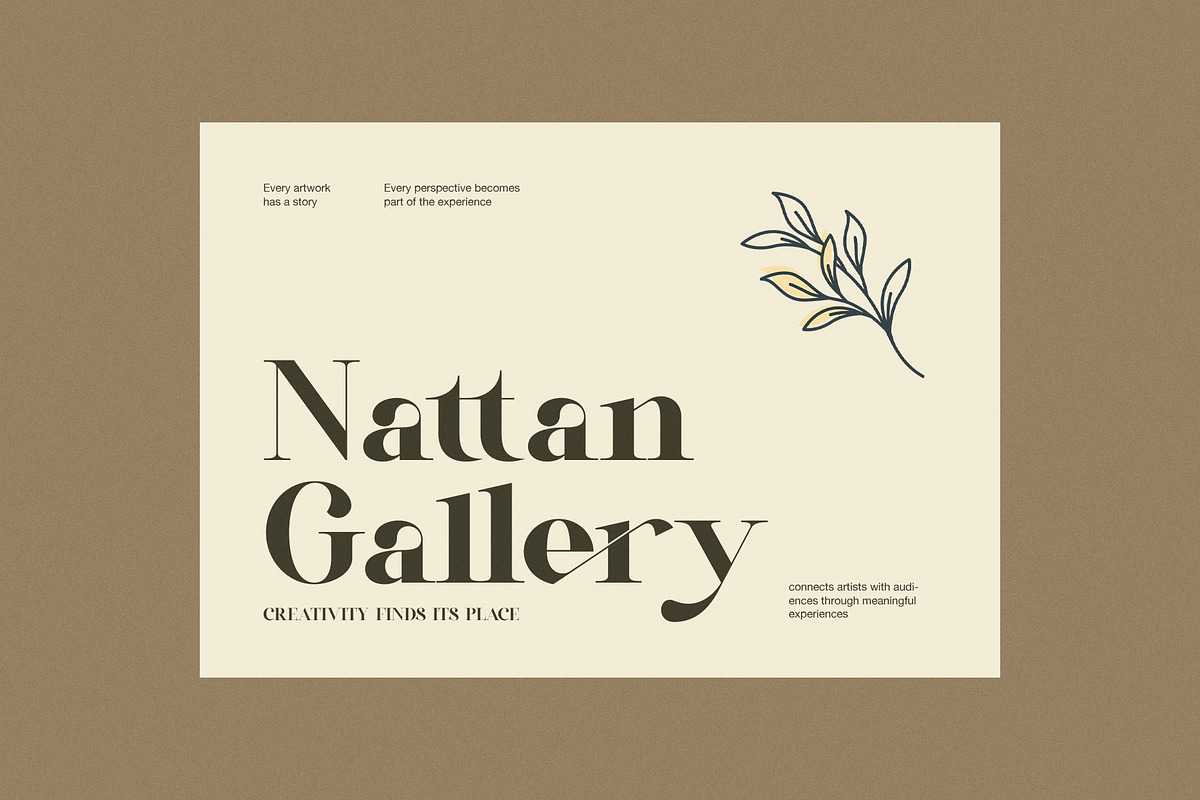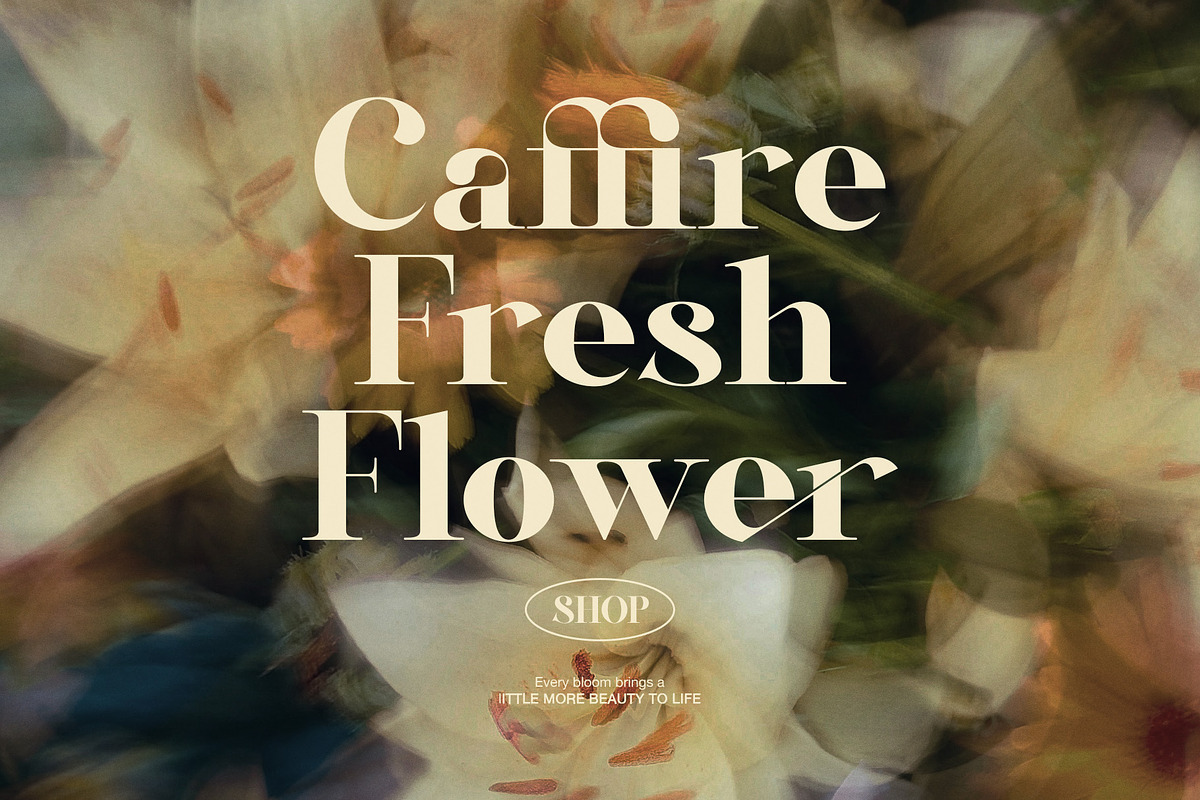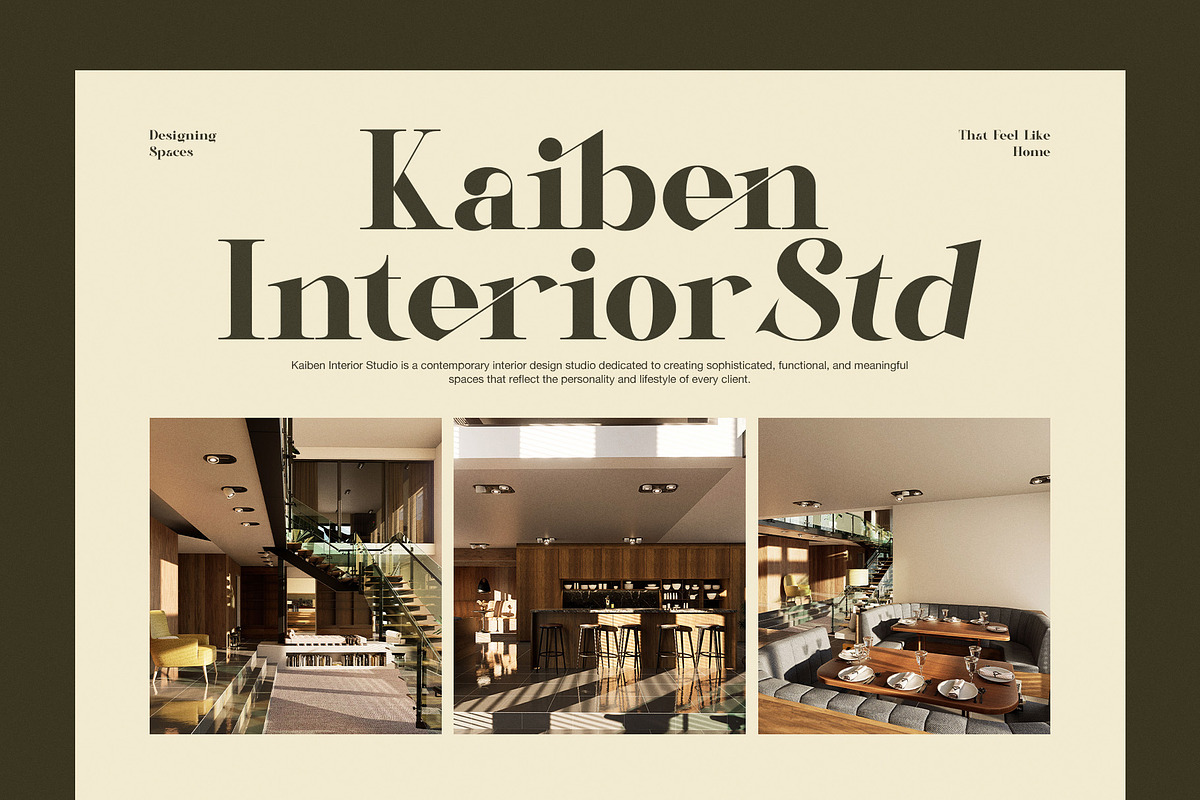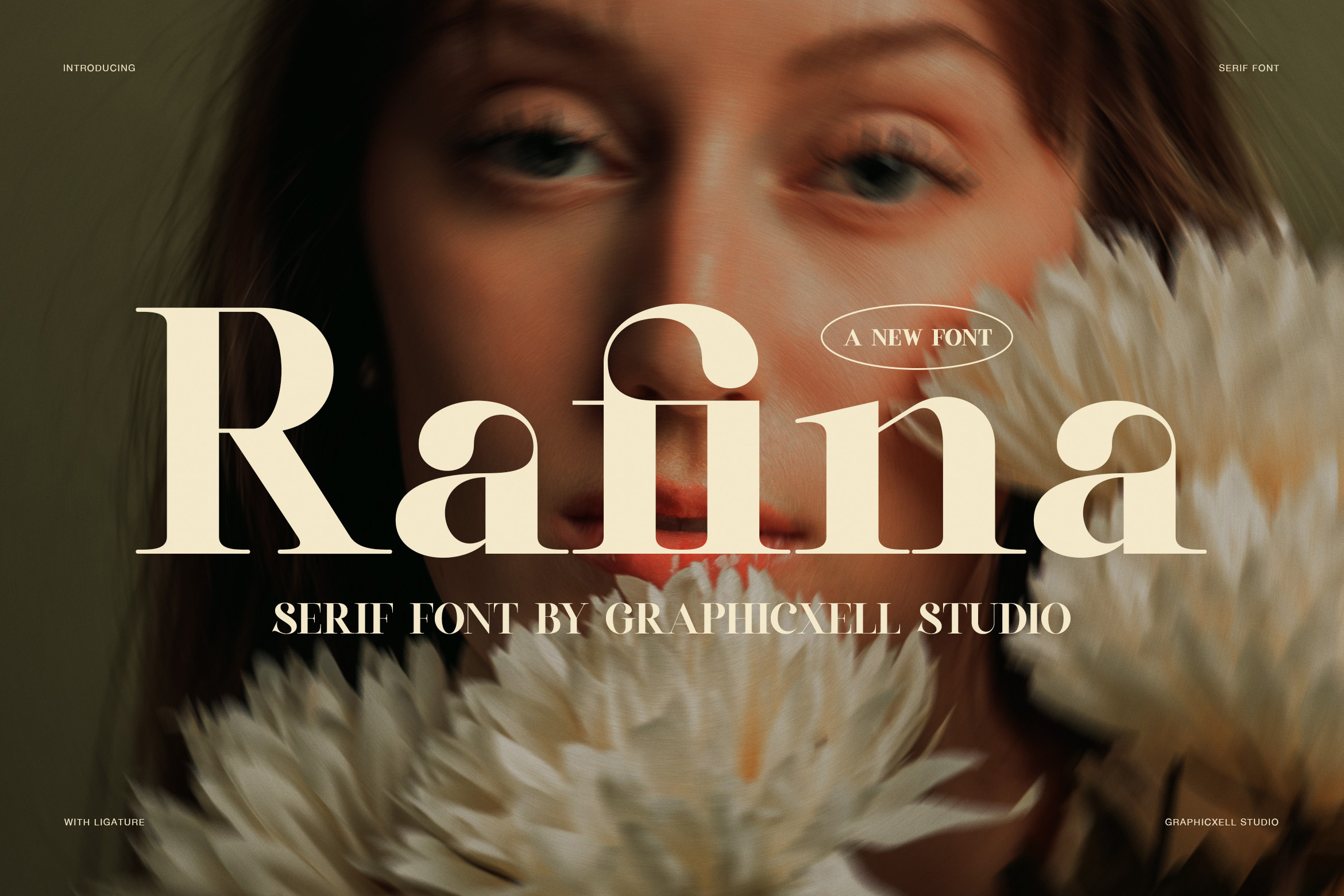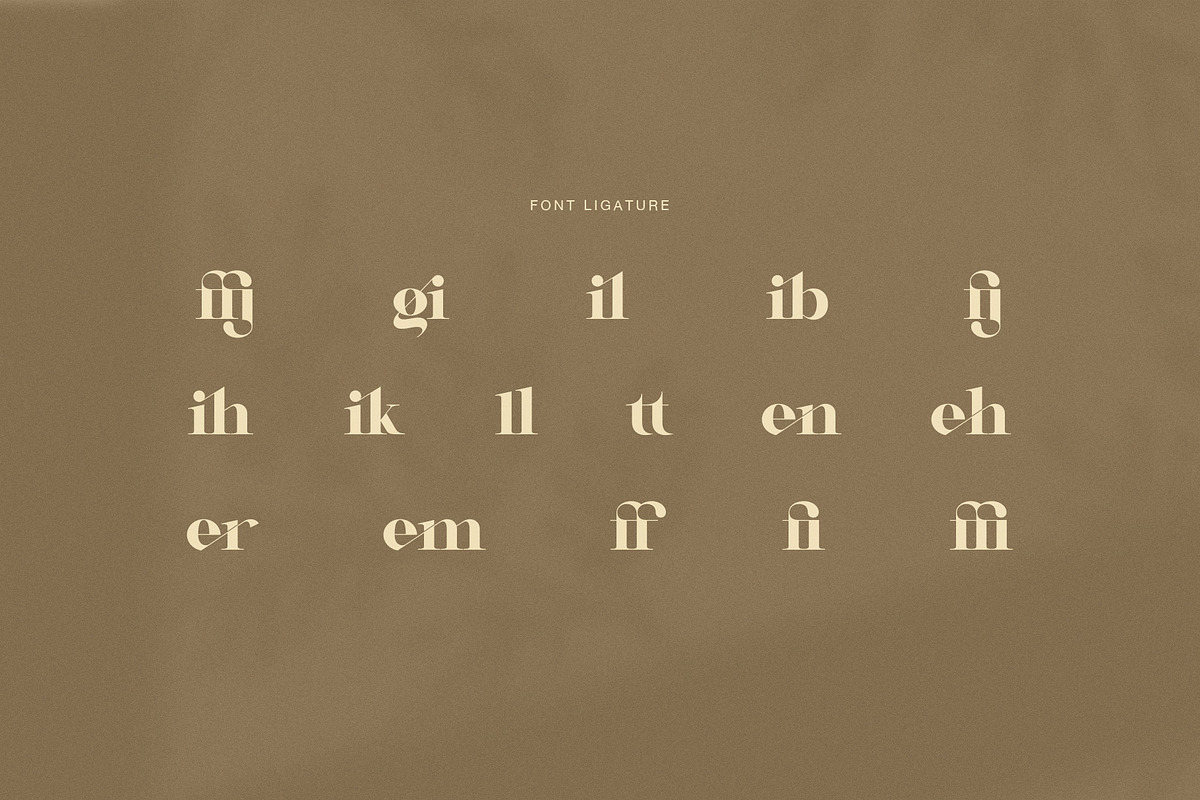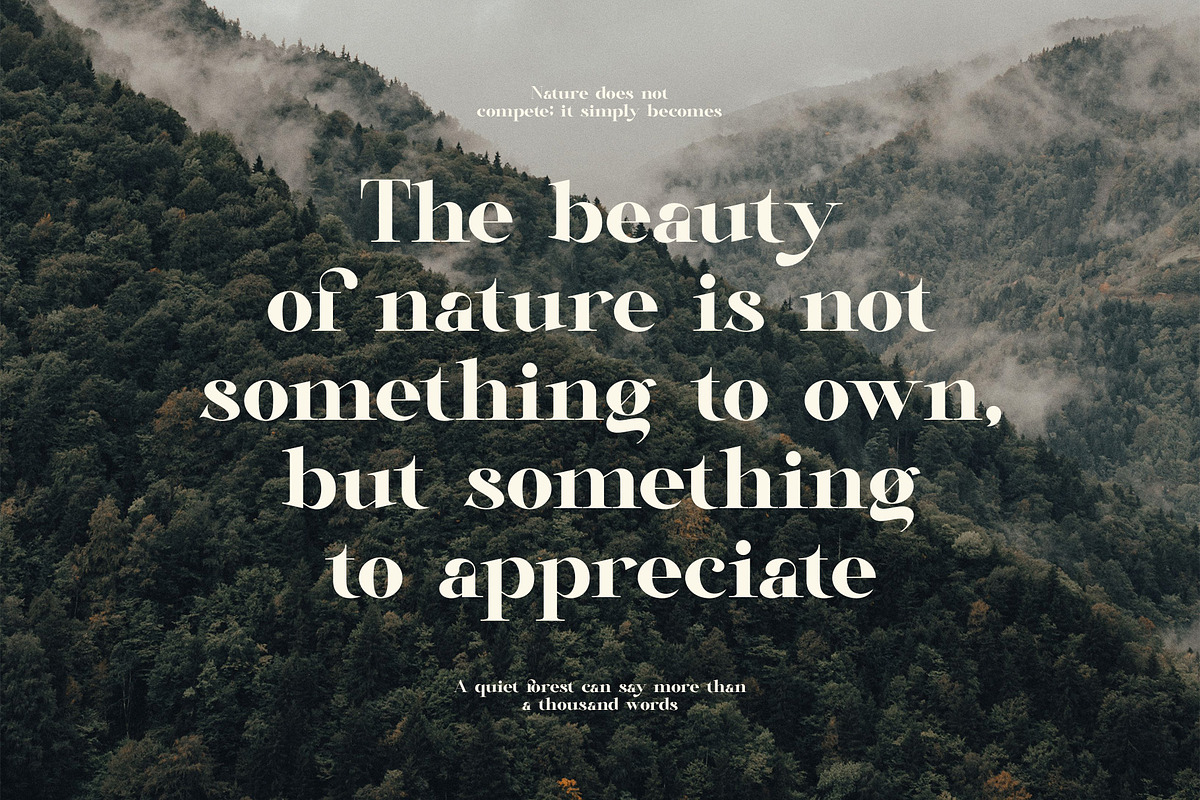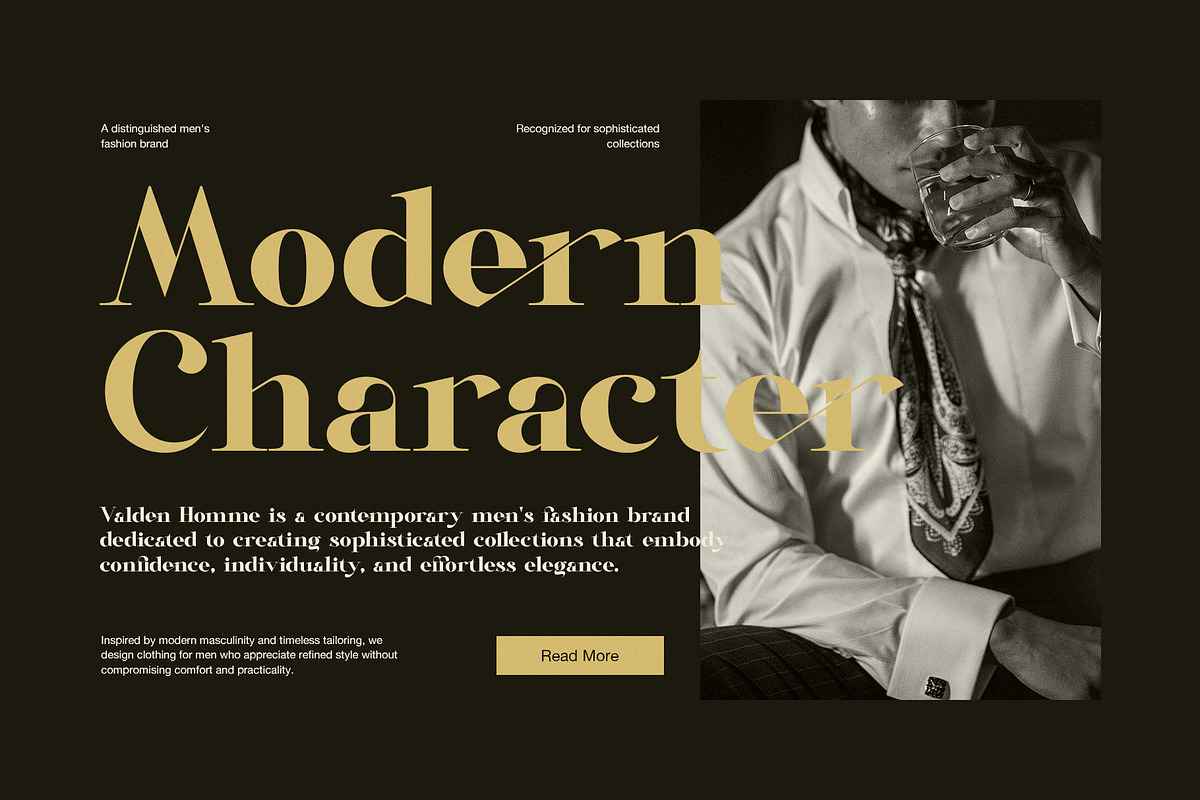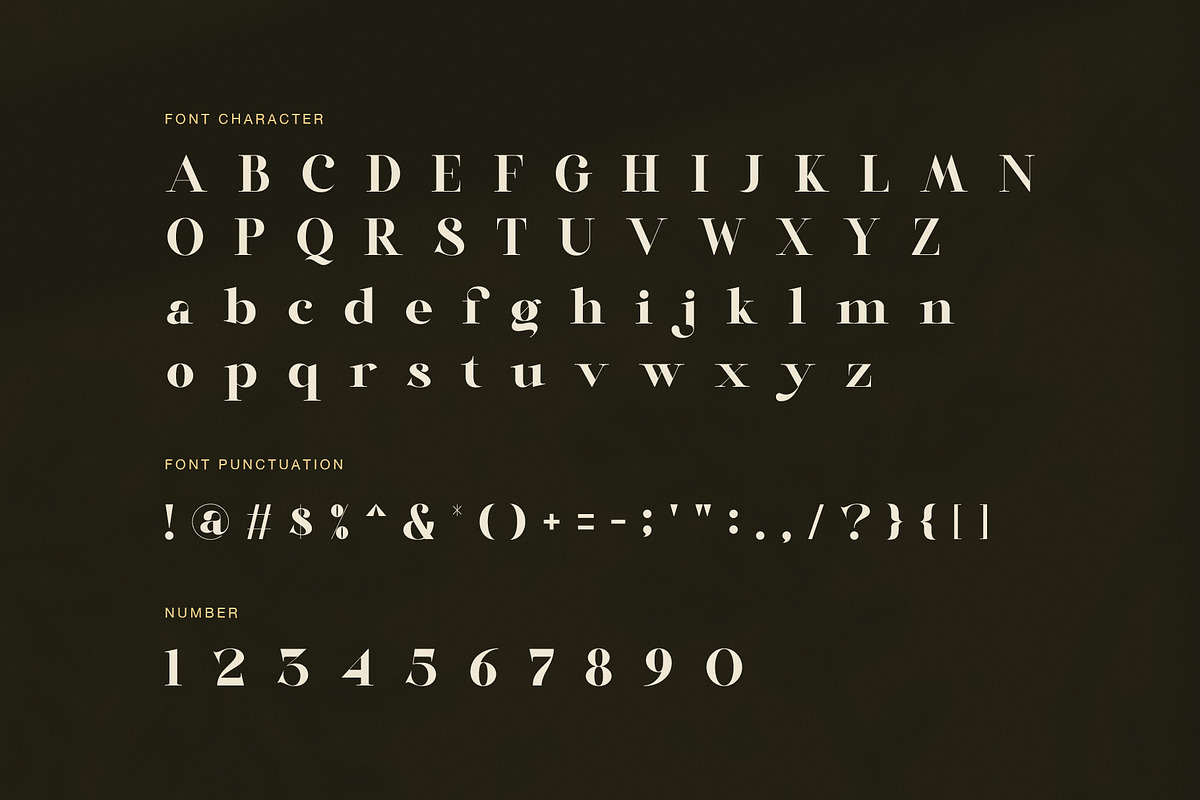
Rafina Elegant Serif Font
Rafina is an elegant high contrast serif font made for fashion, luxury branding, and refined editorial design. Its bold shapes bring a strong visual voice, while fine strokes add a graceful and polished finish. As a result, Rafina feels both modern and timeless.
The design has a clear contrast between thick and thin strokes. In addition, its soft curves and sharp serif details create a stylish look with a touch of classic charm. The lowercase letters have a graceful rhythm, while the uppercase set gives headlines a confident presence. Moreover, selected characters feature distinctive details that make the typeface feel fresh and memorable.
Rafina is also designed with ligatures, giving selected letter pairs a more connected and artistic appearance. Therefore, designers can create elegant wordmarks, names, titles, and display text with extra character. These details work especially well when the font is used at large sizes.
For fashion and beauty projects, Rafina can add a polished magazine feel to campaigns and brand stories. Likewise, it suits luxury logos, boutique identities, wedding stationery, perfume packaging, and premium product labels. It also works beautifully for photography studios, art galleries, interior design brands, hotels, and lifestyle projects.
The font includes uppercase and lowercase letters, numbers, and punctuation. Because of this, it can support a wide range of creative layouts. Use Rafina for main headlines, then pair it with a clean sans serif for supporting copy. This simple combination creates a strong hierarchy and keeps the design easy to read.
Main Features
Elegant high contrast serif style
Fashion and luxury inspired character
Distinctive ligatures for refined lettering
Strong display presence for large headlines
Stylish uppercase and lowercase forms
Numbers and useful punctuation
Ideal for branding, editorial, and packaging
Whether you are building a luxury fashion identity or creating a striking editorial cover, Rafina adds elegance without feeling overly formal. Furthermore, its expressive forms help ordinary words become memorable visual statements. With its refined contrast, graceful curves, and ligature details, Rafina is a versatile serif font for designers who want a sophisticated and fashionable result.